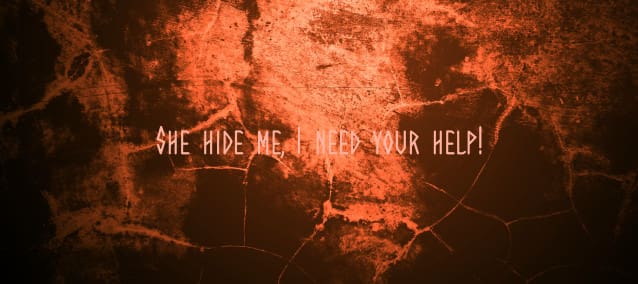
Tseer Font
Tseer Font, It would be a perfect choice to design posters, affiches, logos, t-shirt and magazine prints, eye-pleasing typographic designs and more.